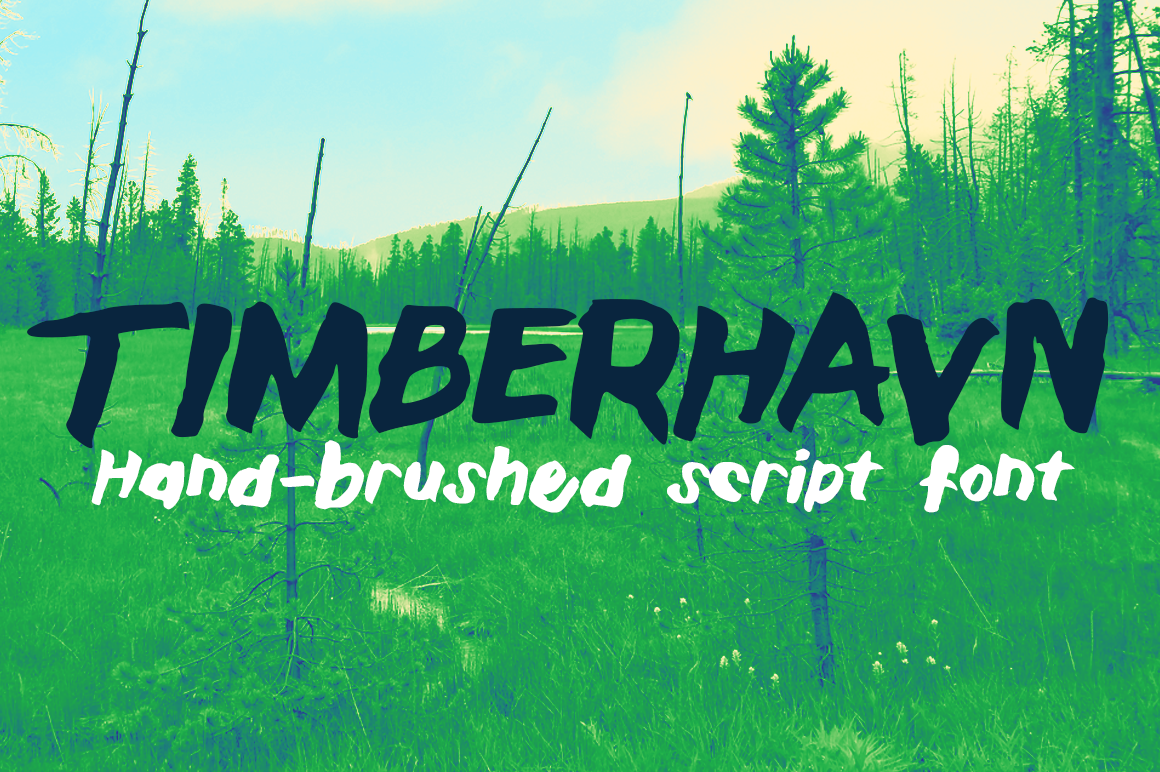
Timberhavn Thick Brush Font
Timberhavn is a new hand-brushed font inspired by rustic outdoor adventures and stories told around the campfire. It's a perfect fit for invitations, posters, journals, logotype, apparel, imprinted items and whatever else needs a uniquely drawn bold statement.